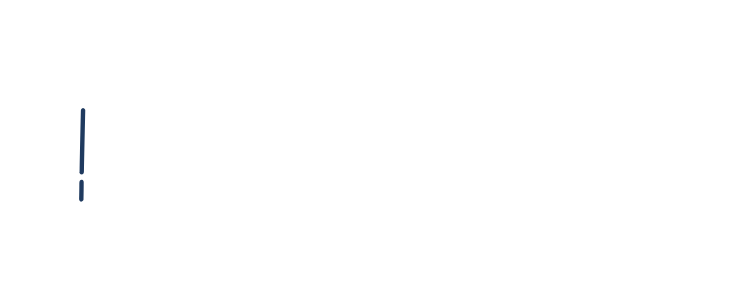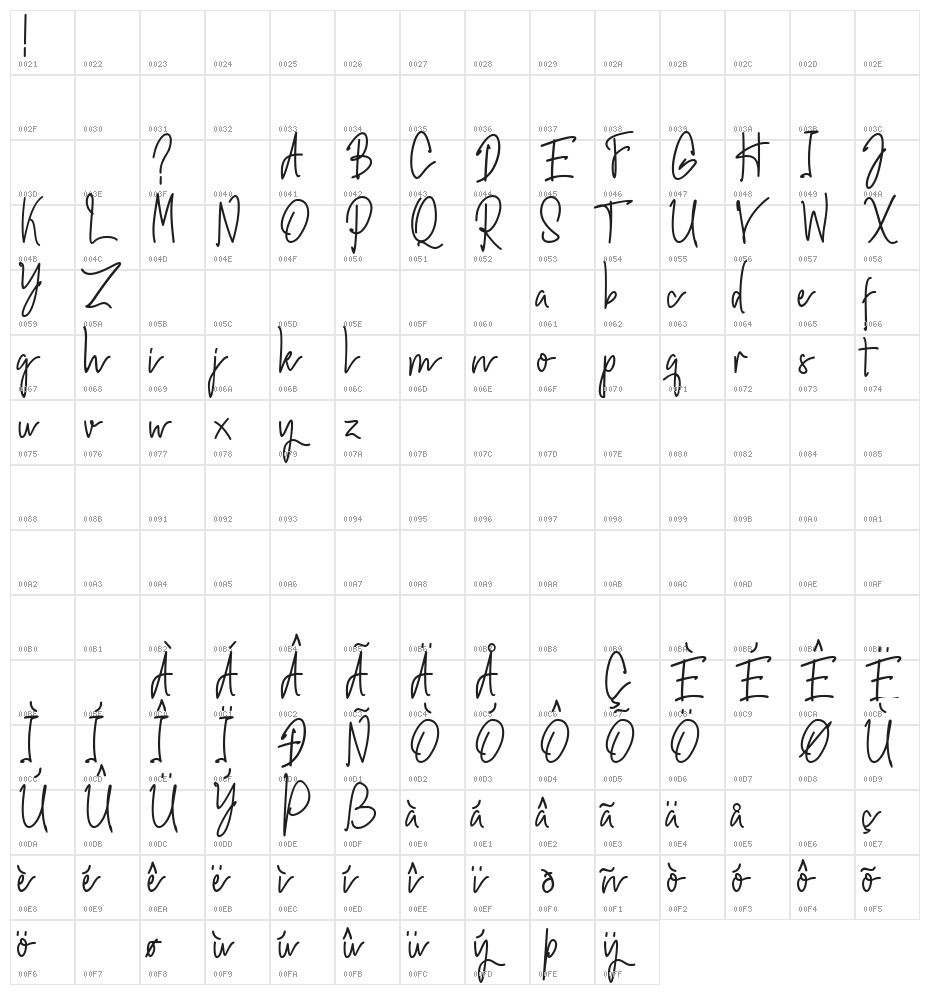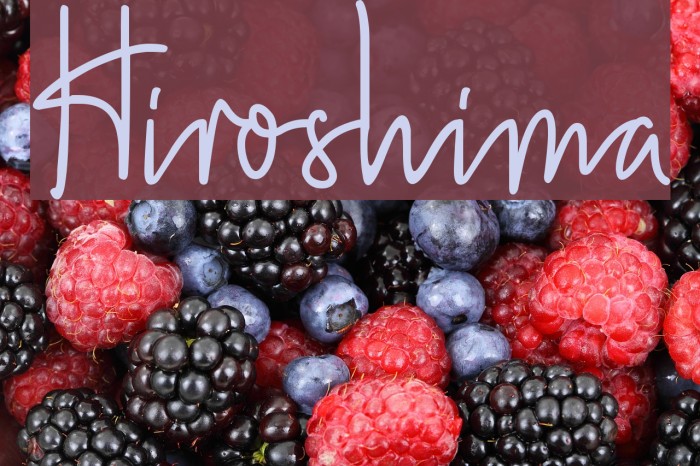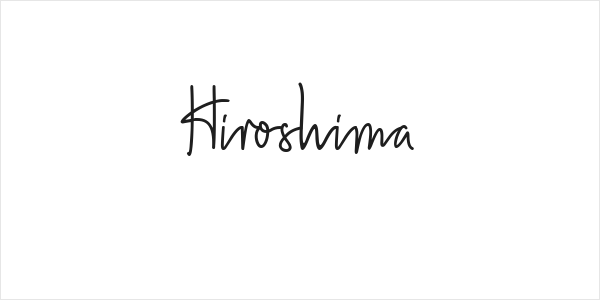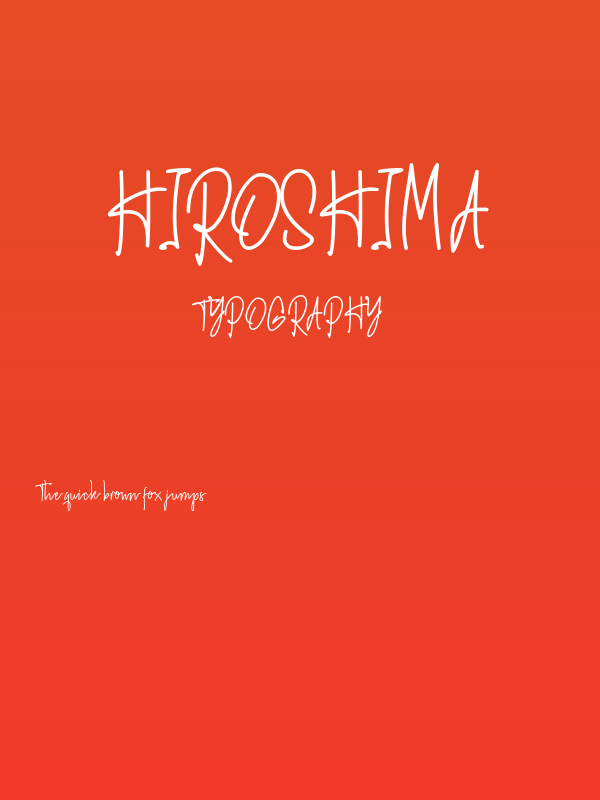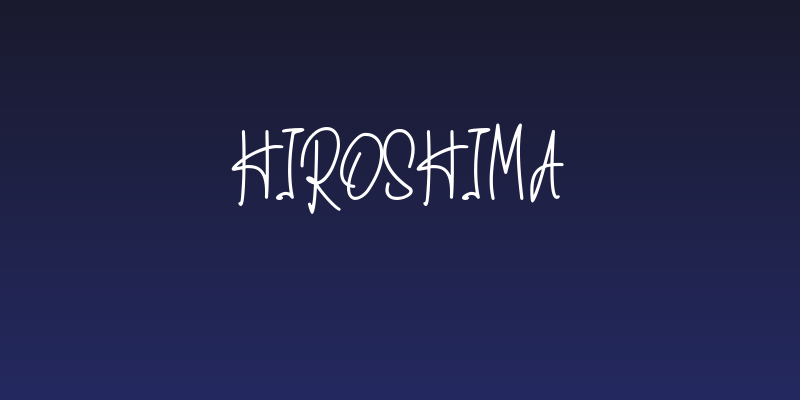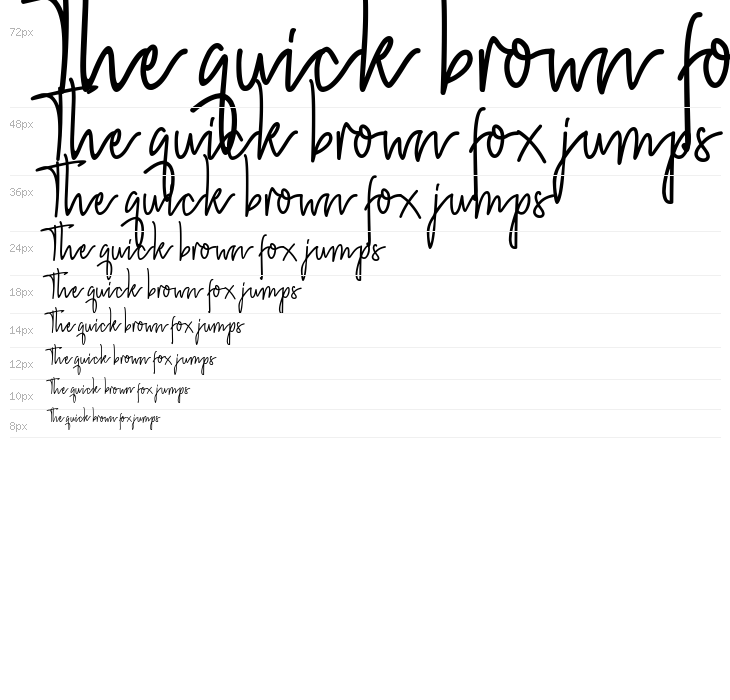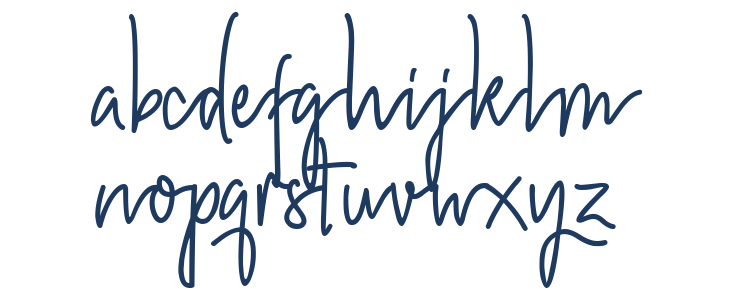
Hiroshima Font
Hiroshima Description
This font features a dynamic and expressive handwritten style, characterized by its fluid and flowing letterforms. The uppercase letters exhibit a playful yet elegant appearance, with varying stroke widths that add a sense of movement and energy. The lowercase letters maintain a consistent style, complementing the uppercase with their smooth curves and loops. The overall design is informal and artistic, making it suitable for creative and personal projects. The font's unique personality is further enhanced by the inclusion of special characters, which maintain the same lively and spontaneous feel.
| Proposed Projects | Ideal for greeting cards, invitations, personal branding, and artistic projects. |